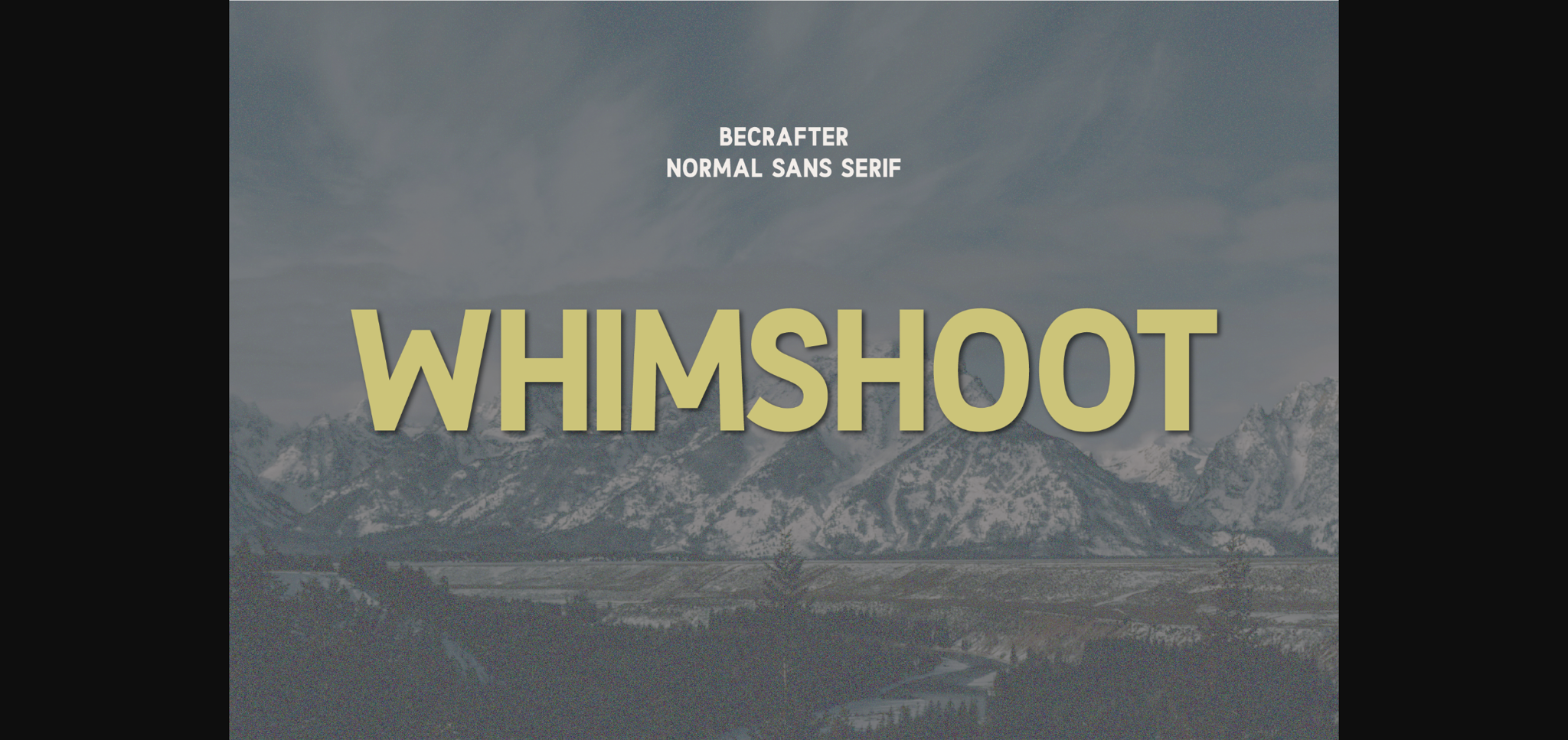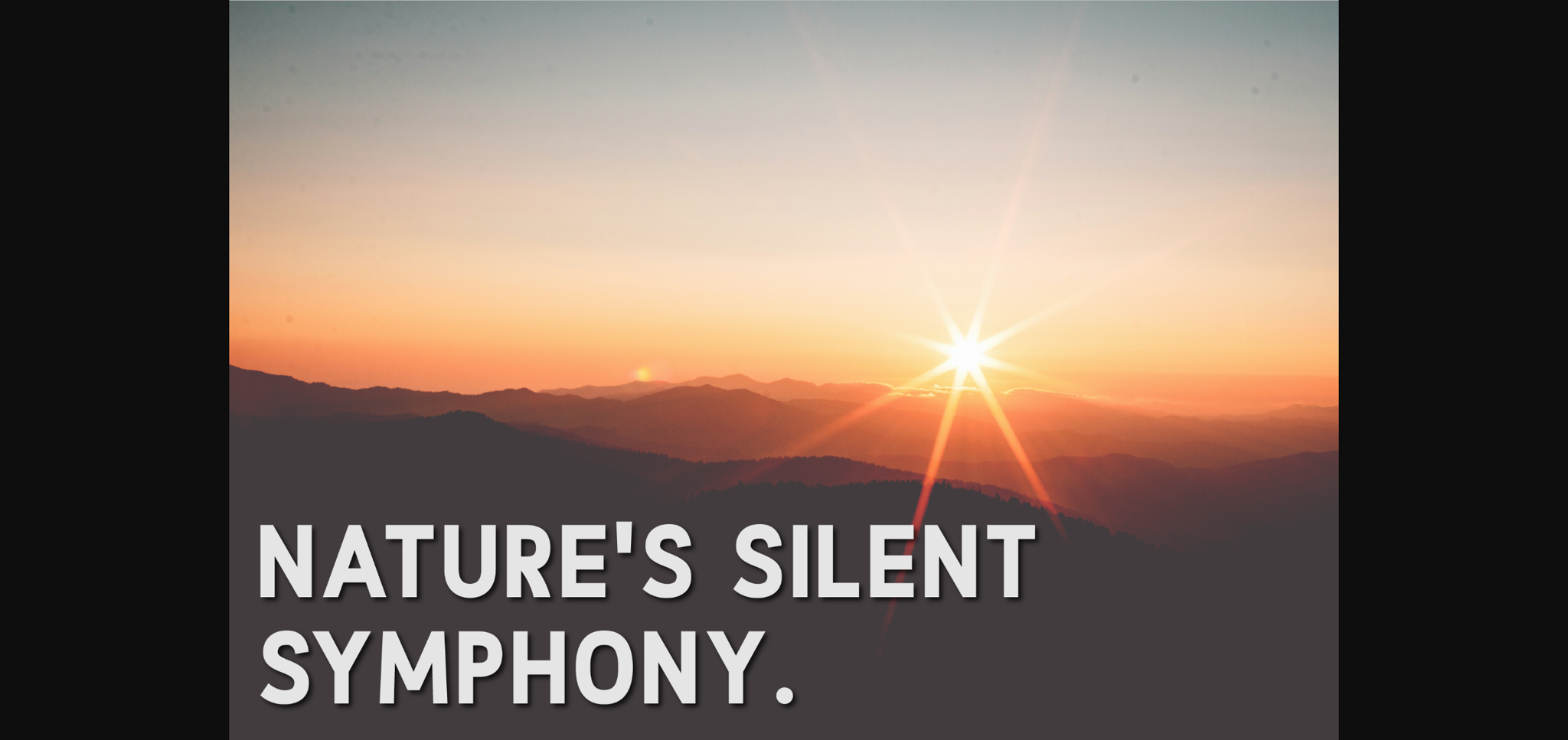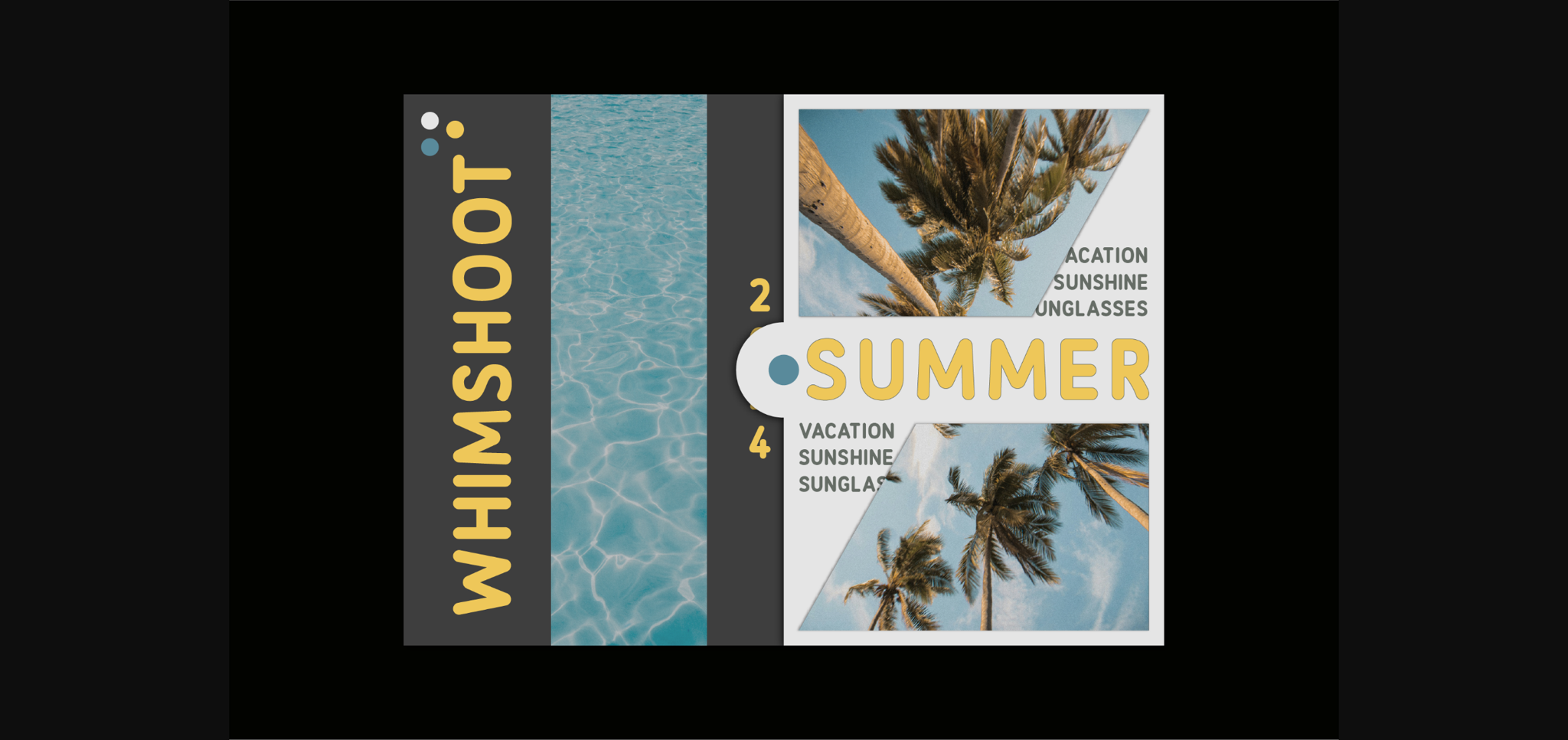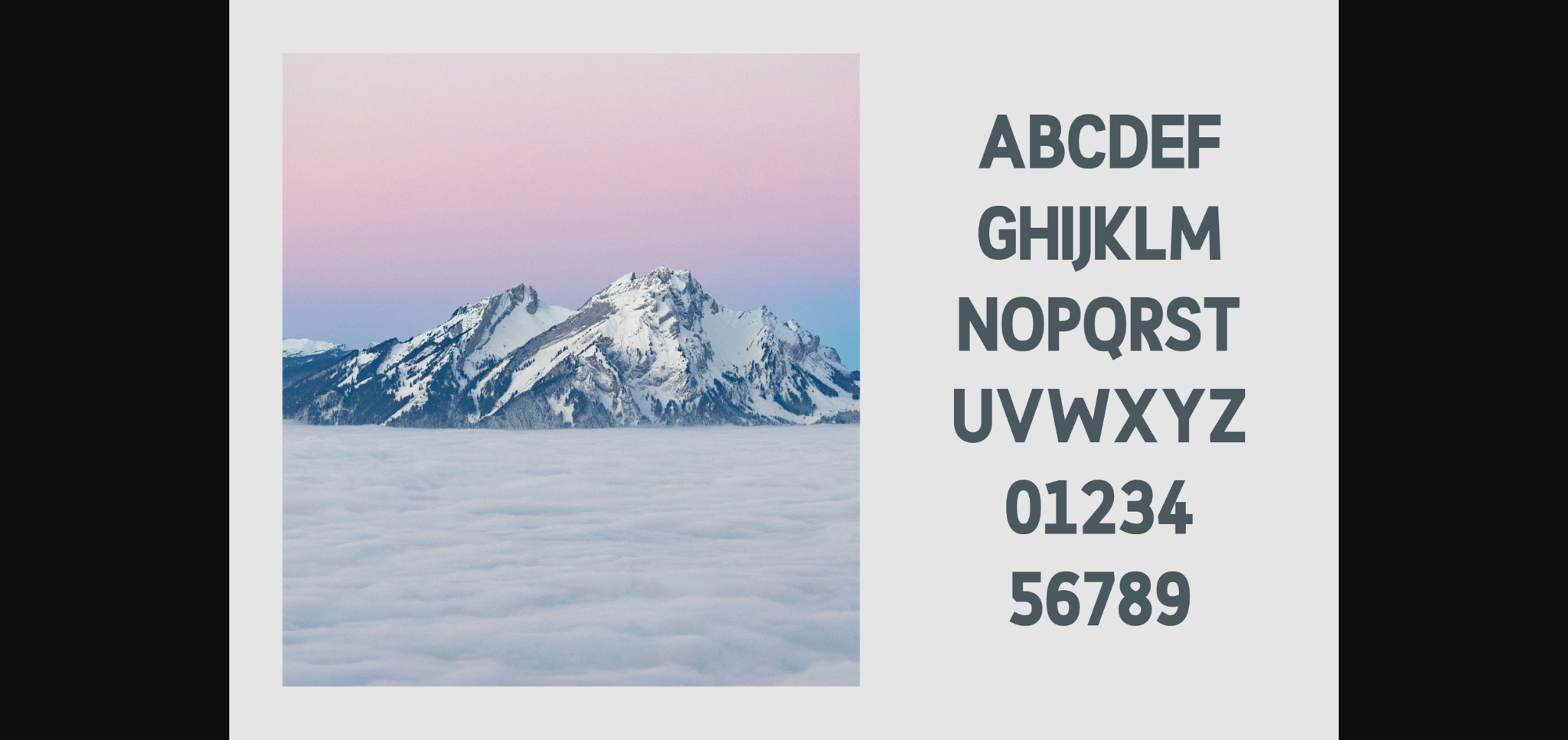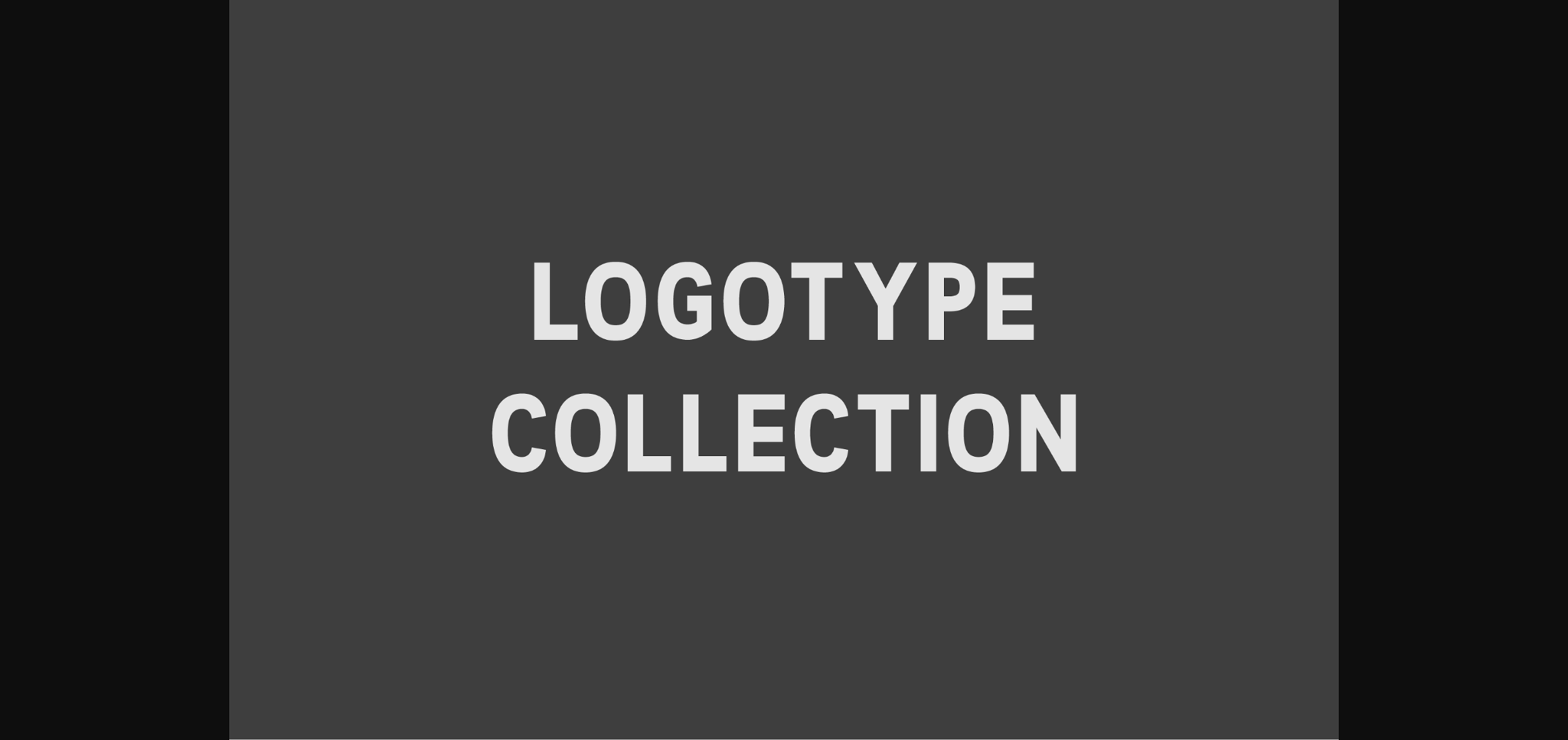
Whimshoot Font
About Whimshoot Font
Unleash the strength of type with Whimshoot; a robust, bold-style font that exudes classic sophistication in every stroke. This stunning vintage sans serif carries a unique versatility that allows it to transcend and adapt to any design context. From coining exquisite logos to embellishing your printed materials, Whimshoot effortlessly adds a touch of bygone elegance and charm to your designs. Its wholesome offering includes uppercase lettering, numbers, and punctuation, extending the artistic allowance and designer-friendly nature of this font. Whimshoot, where simplicity meets style, and old-school cool meets modern design functionalities.